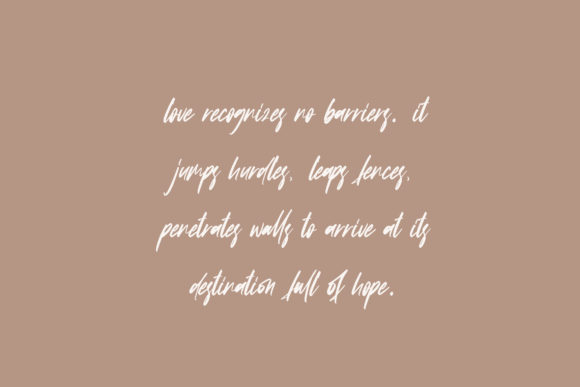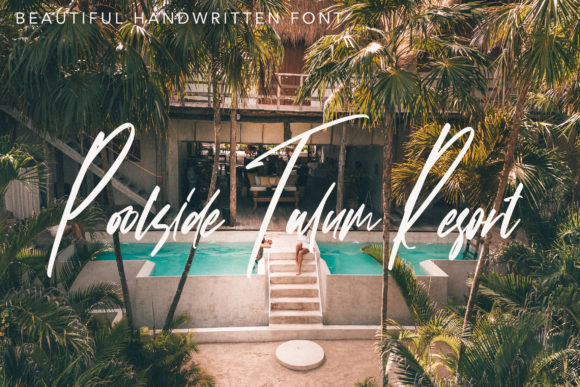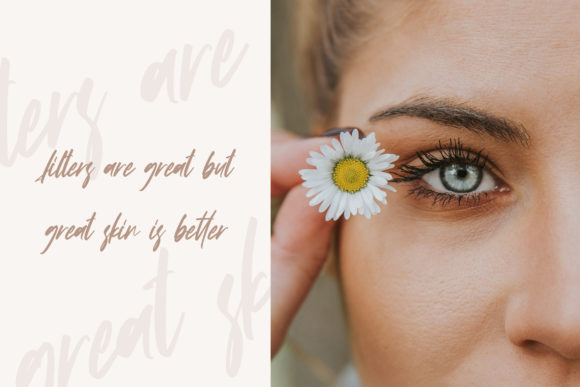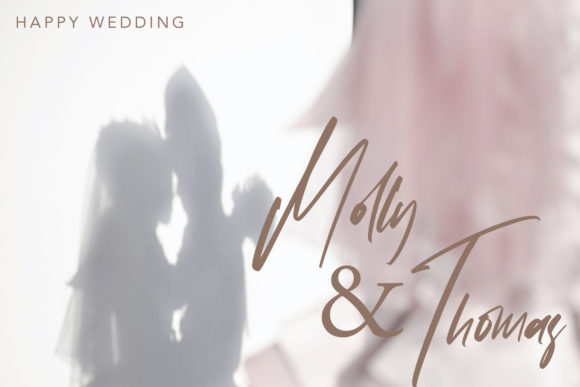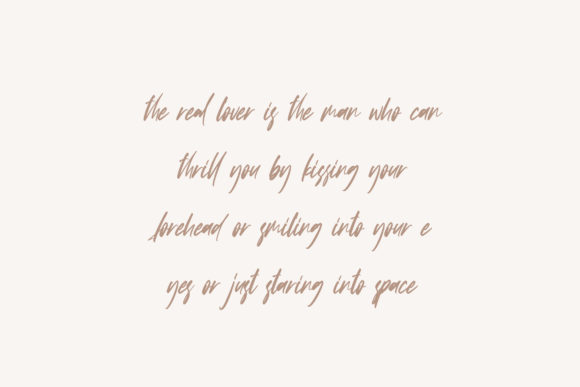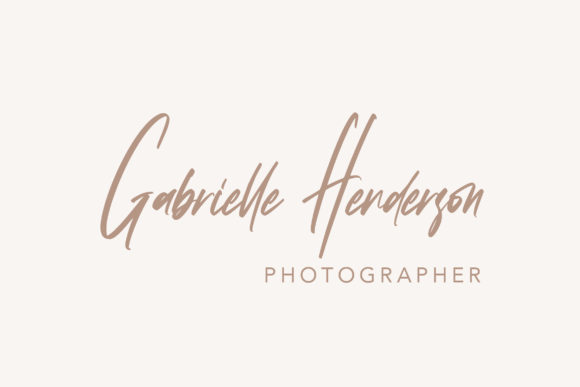
Broomstick Font: The Ultimate Guide to this Unique Handwritten Font
Are you tired of using the same old fonts for your designs? Look no further! Broomstick Font is here to revolutionize your creative projects with its unique handwritten style. Whether you’re a designer, crafter, or simply someone who loves making greeting cards, this font is perfect for you. In this article, we’ll dive into the world of Broomstick Font and explore its incredible versatility.
What is Broomstick Font?
Broomstick Font is a one-of-a-kind handwritten font that’s perfect for adding a personal touch to your designs. Its unique style is reminiscent of handwritten text, with subtle imperfections and quirks that make it feel authentic and relatable. This font is ideal for a wide range of projects, from digital designs and presentations to crafting and greeting card making.
Features of Broomstick Font
So, what makes Broomstick Font so special? Here are just a few of its key features:
- Unique Handwritten Style: Broomstick Font boasts a distinctive handwritten style that’s perfect for adding a personal touch to your designs.
- Incredibly Versatile: Whether you’re designing for digital or print, Broomstick Font adapts seamlessly to any project.
- Easy to Read: Despite its handwritten nature, Broomstick Font is surprisingly easy to read, making it perfect for body text and headings.
- Perfect for Crafting: Broomstick Font is a crafter’s dream, with its rustic charm and homespun feel.
Uses for Broomstick Font
So, what can you use Broomstick Font for? The possibilities are endless! Here are just a few ideas to get you started:
- Digital Designs: Use Broomstick Font to add a personal touch to your social media graphics, blog posts, and website designs.
- Presentations: Add a touch of elegance to your presentations with Broomstick Font’s unique handwritten style.
- Greeting Card Making: Create beautiful, handmade greeting cards with Broomstick Font as the star of the show.
- Crafting: From scrapbooking to journaling, Broomstick Font is the perfect addition to any crafting project.
Tips for Using Broomstick Font
Now that you know how amazing Broomstick Font is, here are a few tips for using it effectively:
- Mix and Match: Combine Broomstick Font with other fonts for a unique, layered look.
- Experiment with Colors: Try pairing Broomstick Font with different colors and textures to add depth and interest to your designs.
- Keep it Simple: Don’t be afraid to keep things simple with Broomstick Font as the focal point.
In conclusion, Broomstick Font is a game-changer for designers and crafters alike. Its unique handwritten style and incredible versatility make it the perfect addition to any project. Whether you’re a seasoned pro or just starting out, Broomstick Font is sure to inspire your creativity and take your designs to the next level. So why wait? Fall in love with Broomstick Font today and start creating spectacular designs!
- Broomstick Font is a unique handwritten font perfect for designers and crafters.
- Its incredibly versatile style adapts to any project, from digital designs to crafting.
- Broomstick Font is easy to read and perfect for body text and headings.
- Use Broomstick Font for digital designs, presentations, greeting card making, and crafting.